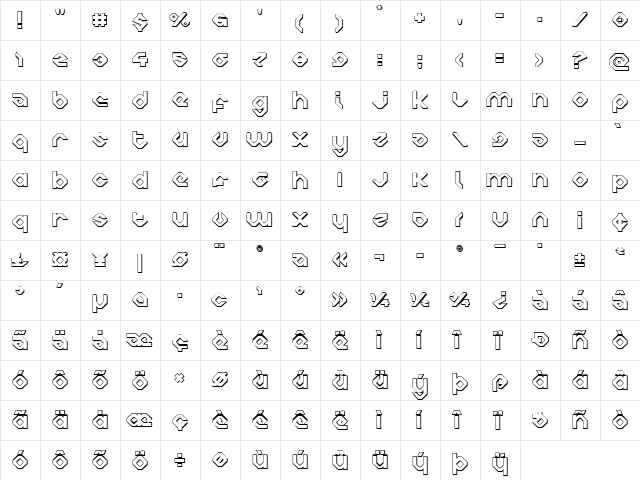
Charlie's Angles 3D Regular
Design Context for Charlie's Angles 3D Typeface
Charlie's Angles 3D is a composed and adaptable typeface that performs quietly and consistently across a wide range of design contexts.
Pro Tip: Use Charlie's Angles 3D in both headline and body roles to test its range before committing to a single application.